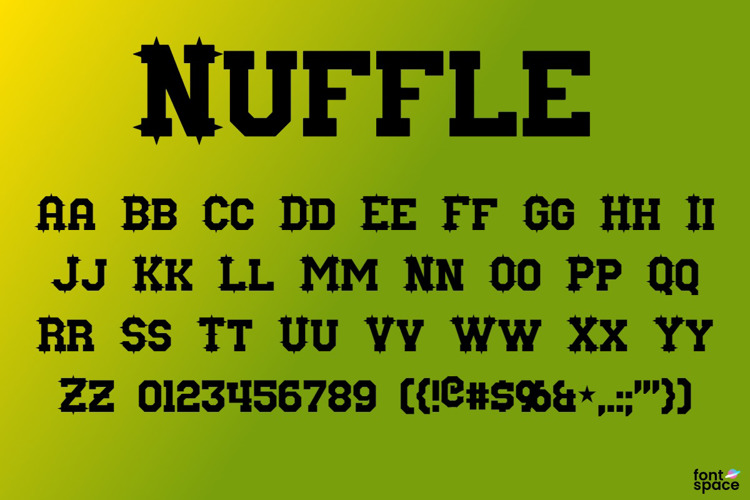
Nuffle Font
About Nuffle Font
Nuffle is based on the title logo of the recent Games Workshop's Blood Bowl titles. It's a sharp, angular face designed to resemble college football text, along with extra-sharp spikes in the capital letters. Includes full alphabet, extended punctuation, euro. Includes regular and italic weights.
Font also includes Nuffle Dice, which is a dings font covering block dice, six-sided pips (up through ten), and other related symbols.